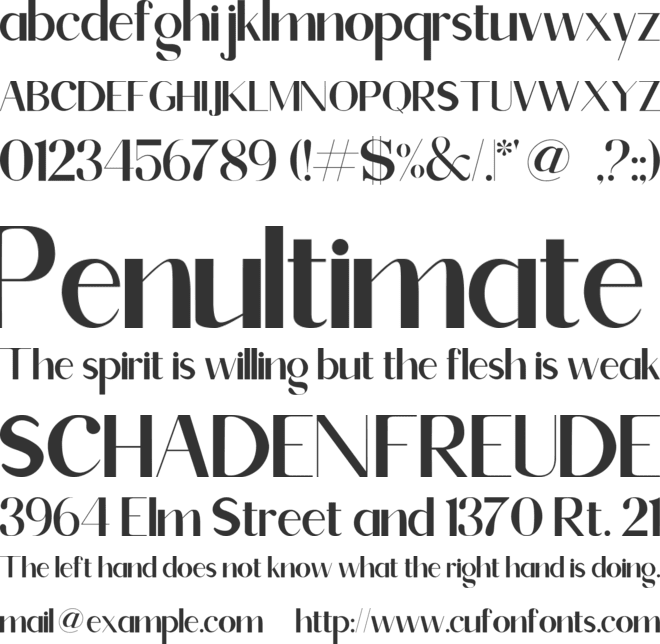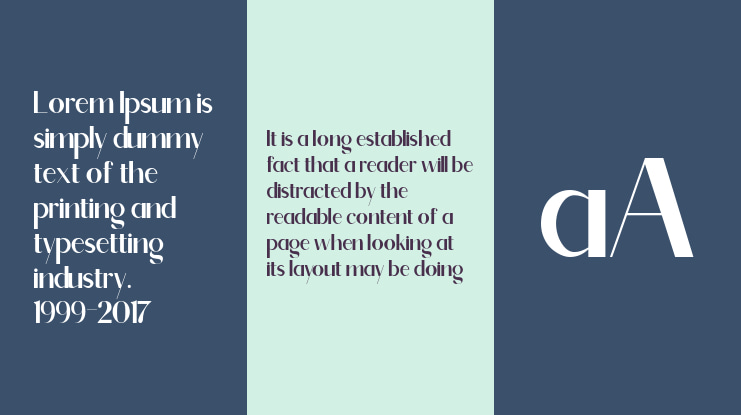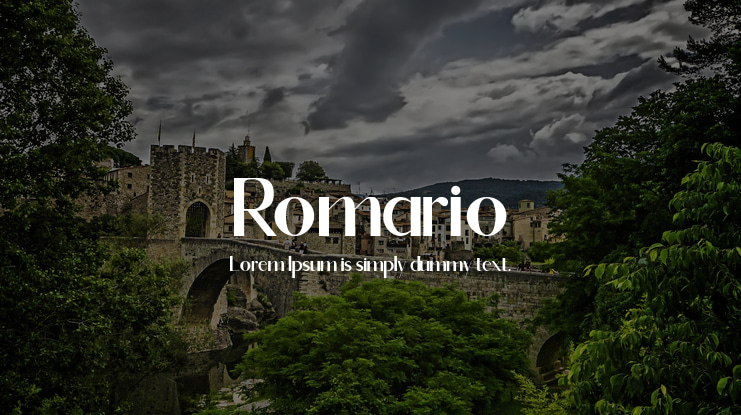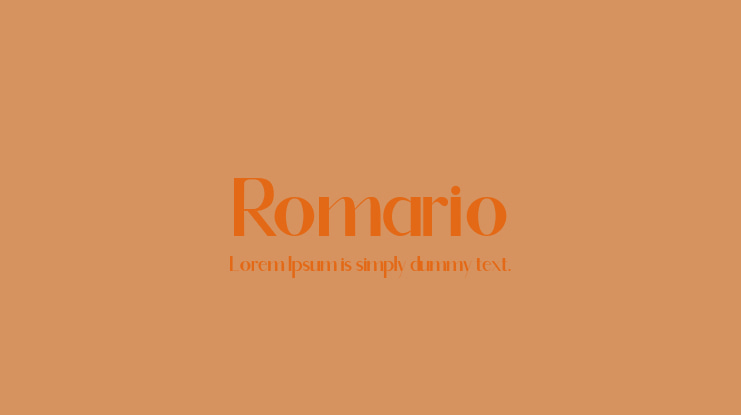
Romario Font
This is a condensed sans serif font crafted & designed by Goodrichees. With bold tall sharp edge stroke, fun character with a bit of ligatures and alternates. It can easily be matched to an incredibly large set of projects, so add it to your creative ideas and notice how it makes them stand out!